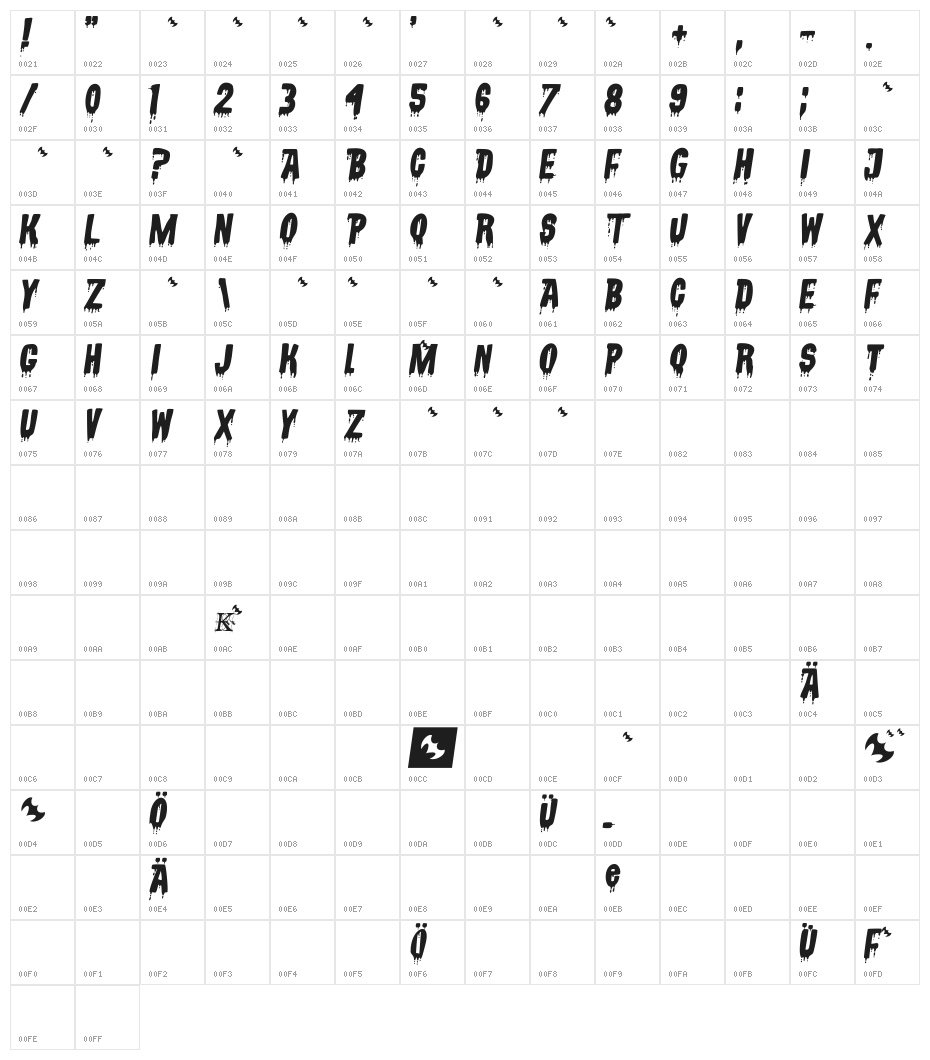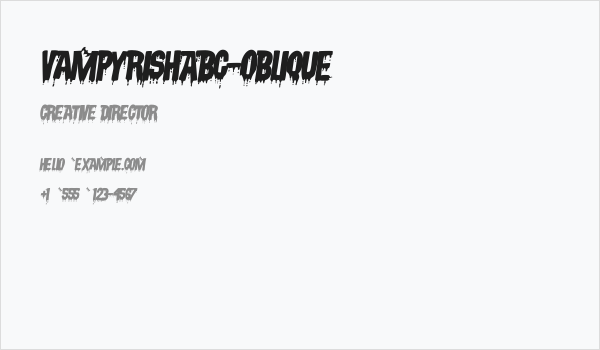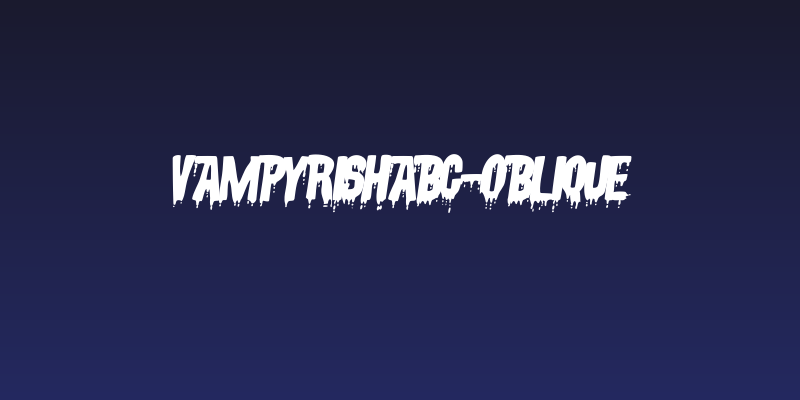
VampyrishABC-Oblique Font
VampyrishABC-Oblique Description
This font features a dramatic and eerie style, characterized by its dripping, liquid-like appearance that evokes a sense of horror or the supernatural. The bold, thick strokes are uneven and jagged, enhancing its unsettling aesthetic. Each character appears as if it is melting or bleeding, making it ideal for themes related to Halloween, horror, or gothic settings. The uppercase and lowercase letters maintain a consistent style, with numbers and special characters following the same dripping motif. This font is designed to capture attention and convey a sense of mystery and darkness.
| Proposed Projects | Ideal for Halloween posters, horror movie titles, spooky event invitations, and themed merchandise. |